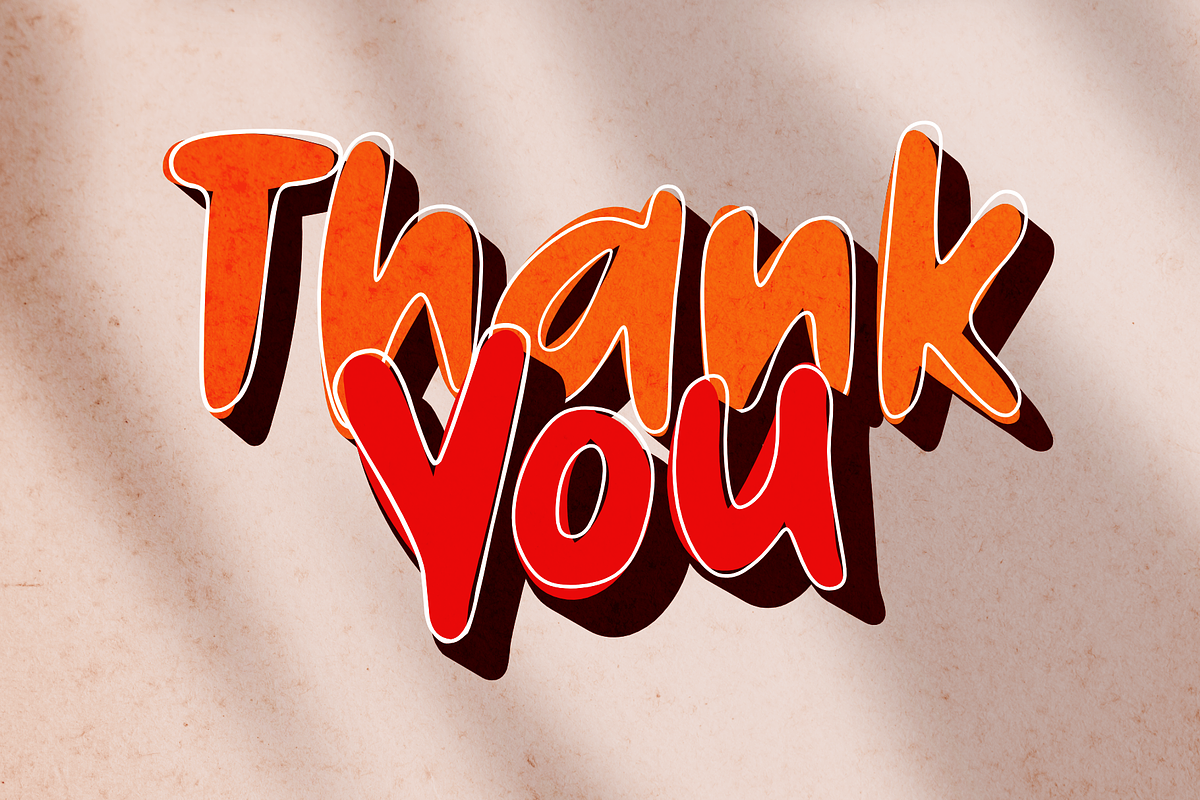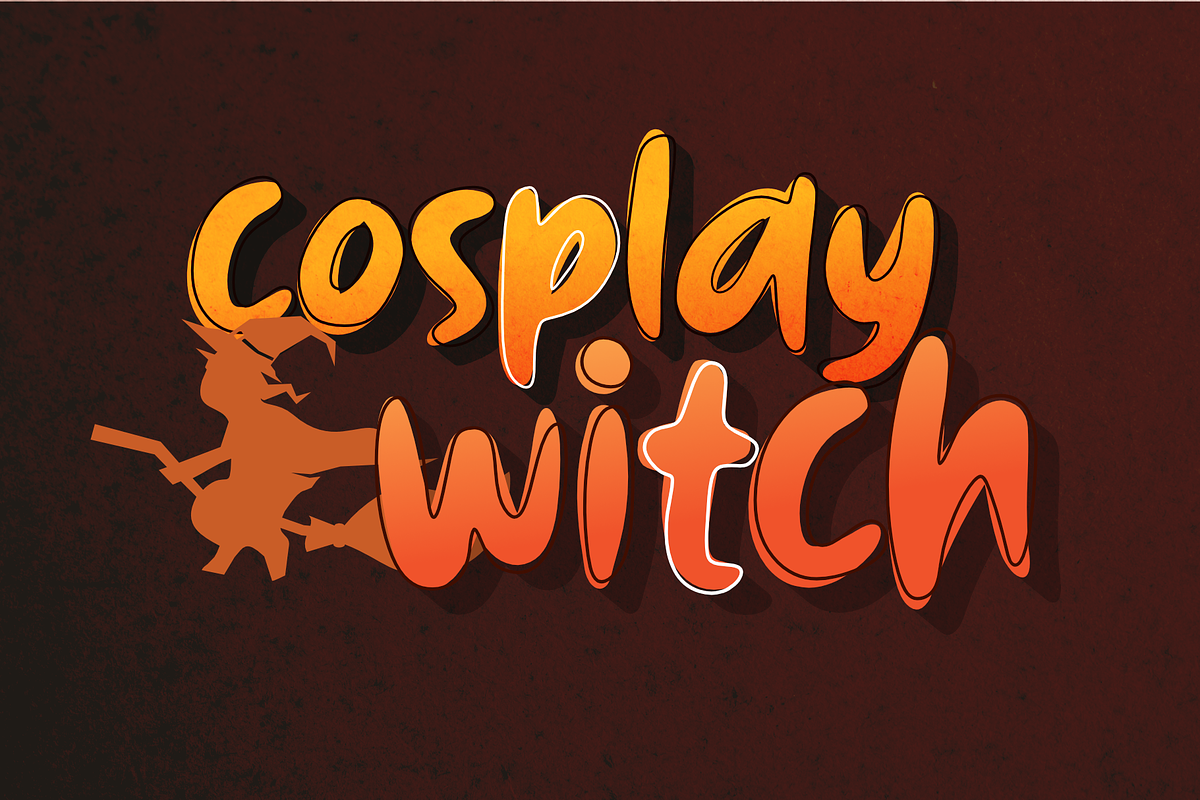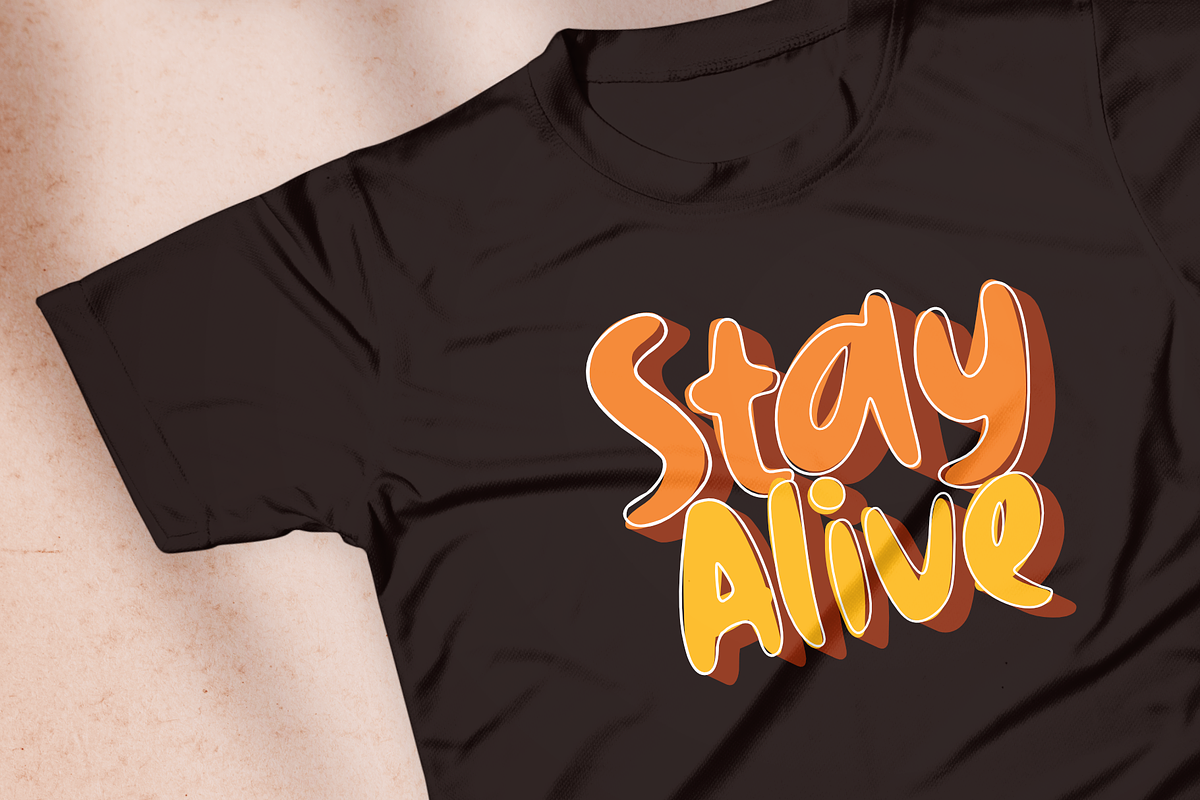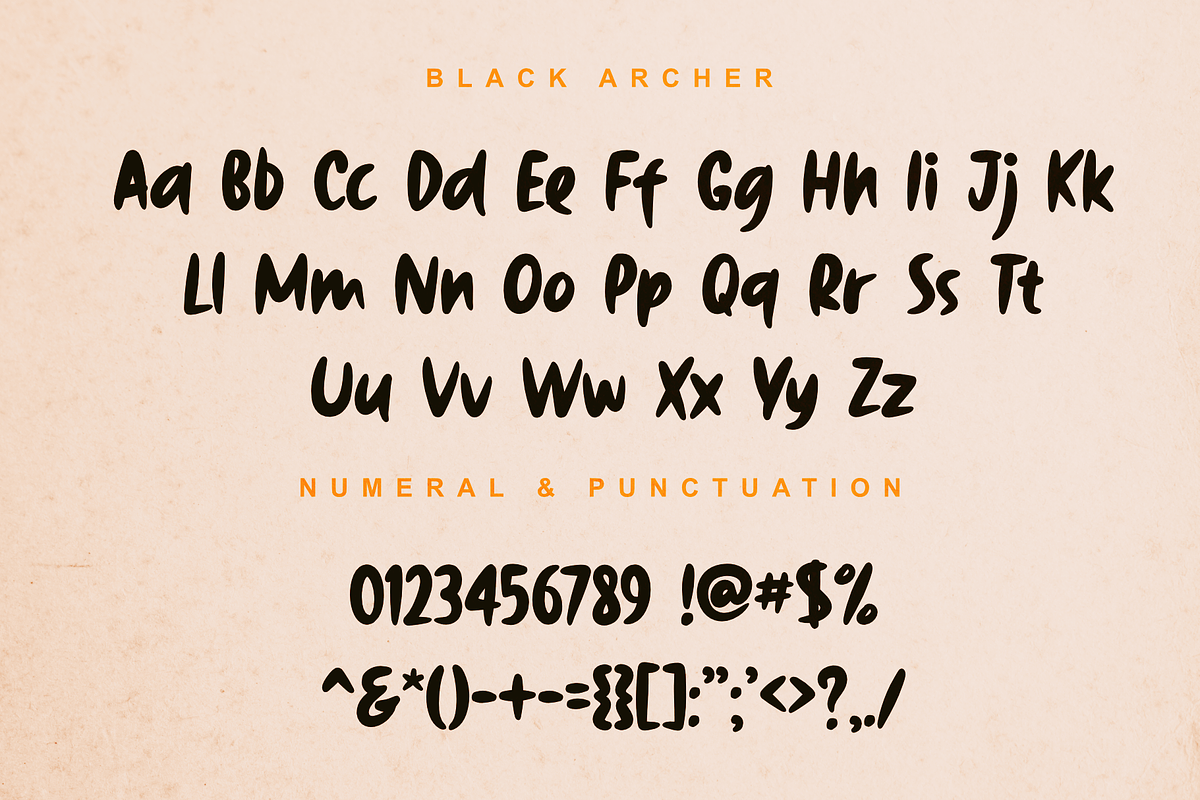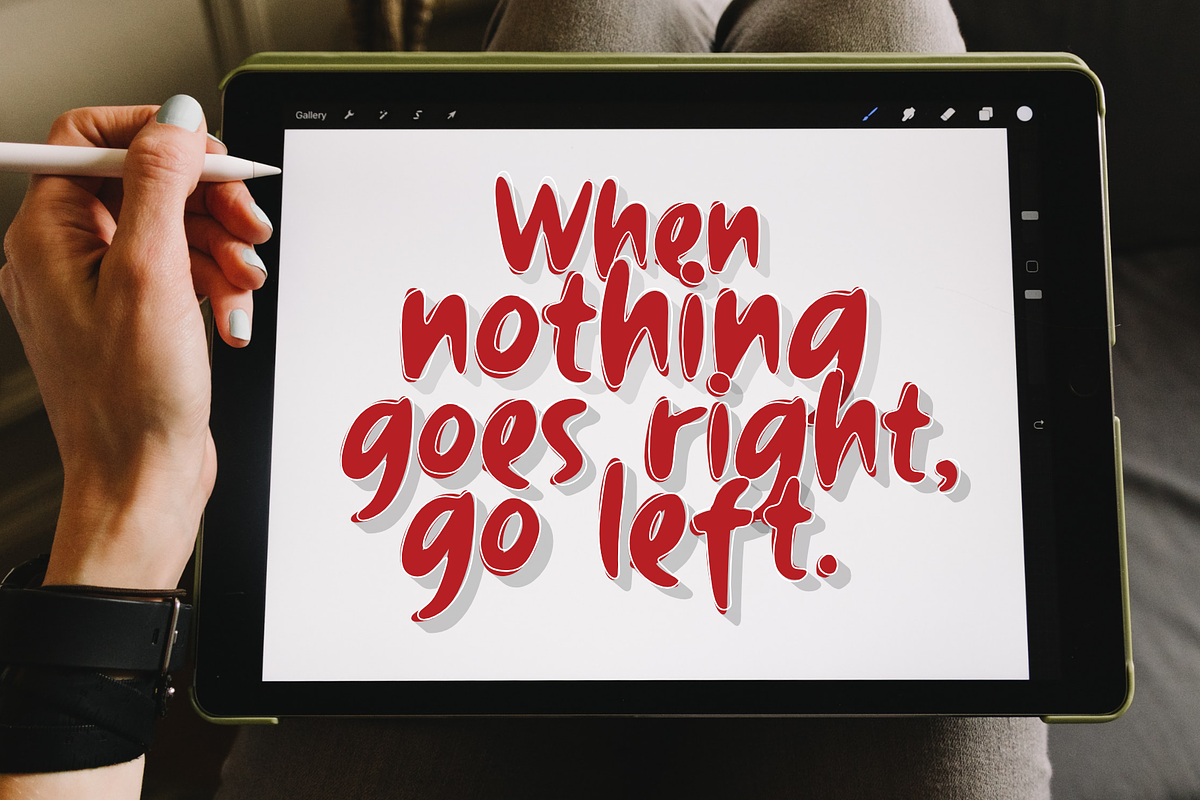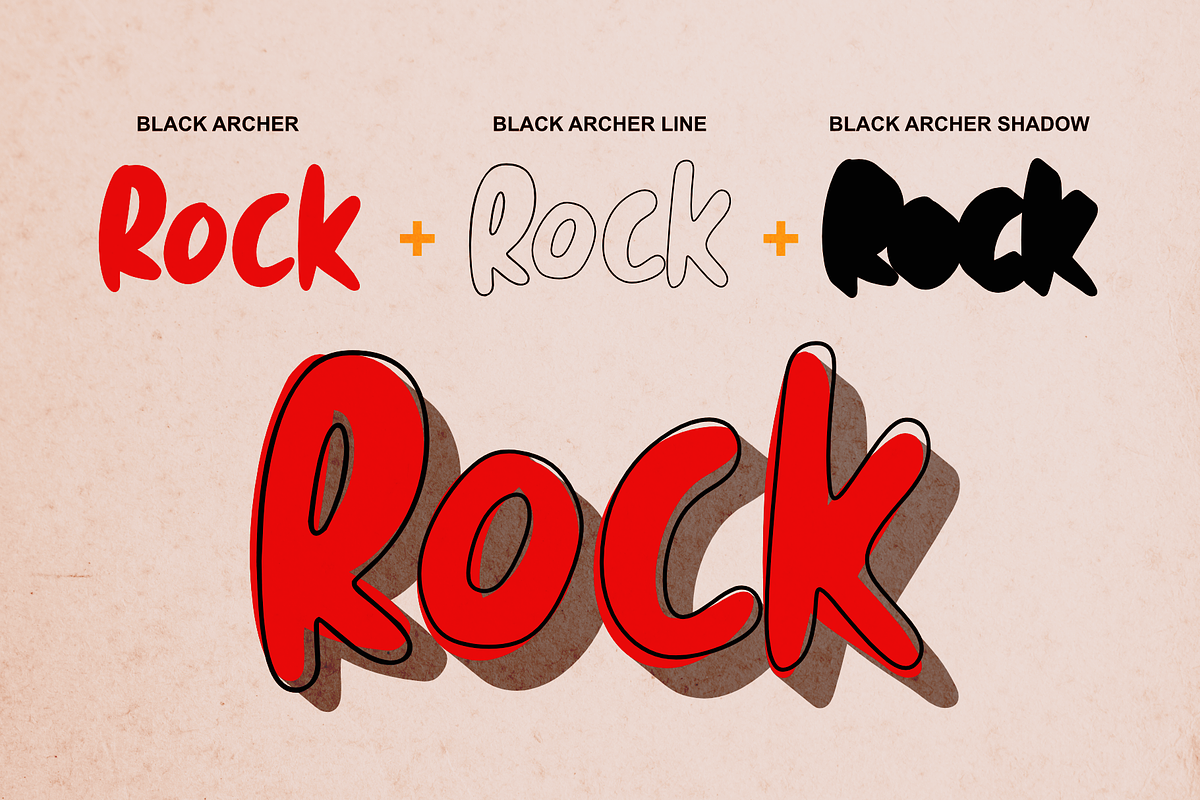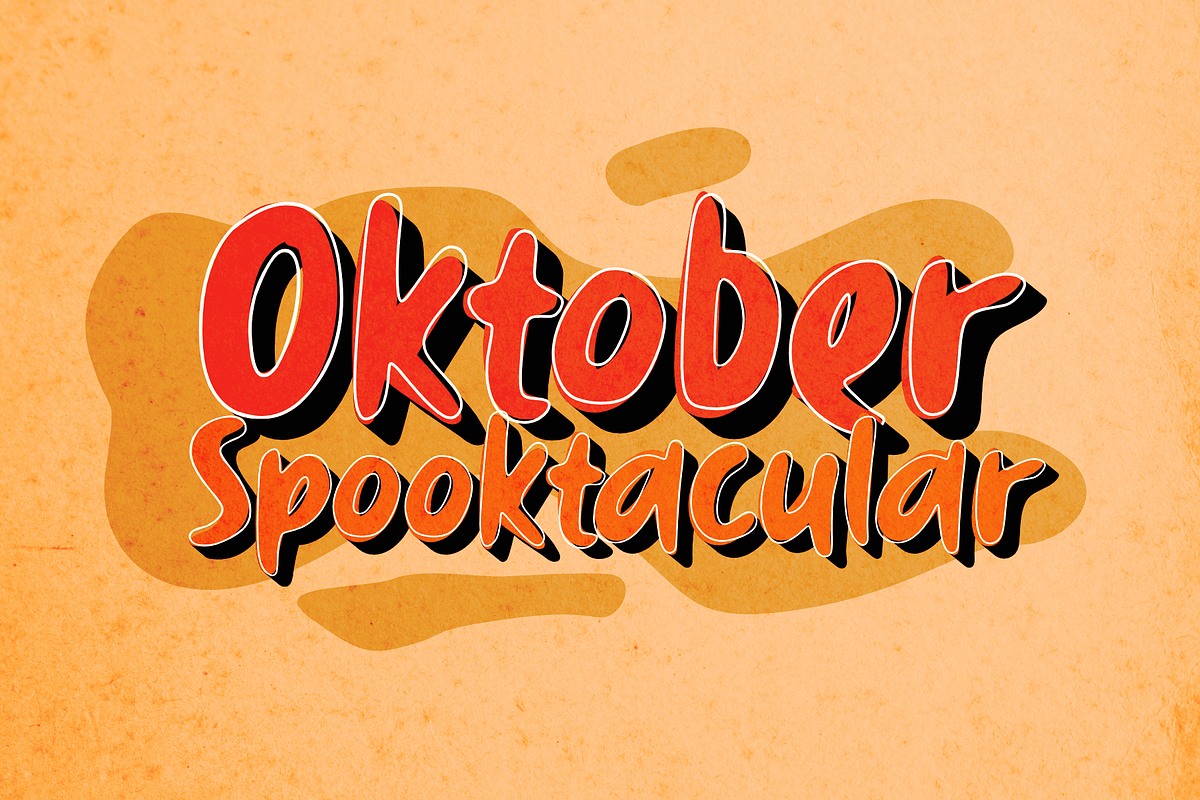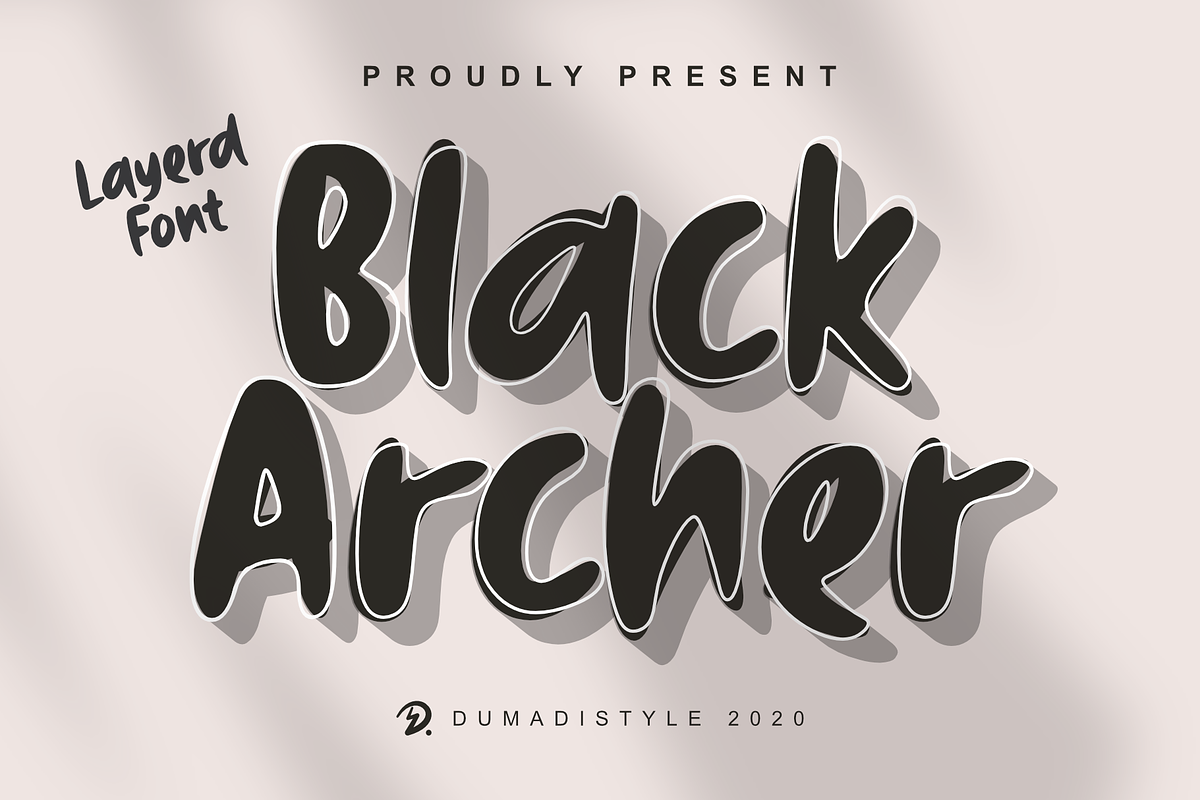
Black Archer
Black Archer is a freestyle brush font with added layers of lines and shadows.
Black Archer lends itself to messy designs with an amazing sense of art. You will find the sensation if this font collaborates with your design, good luck!